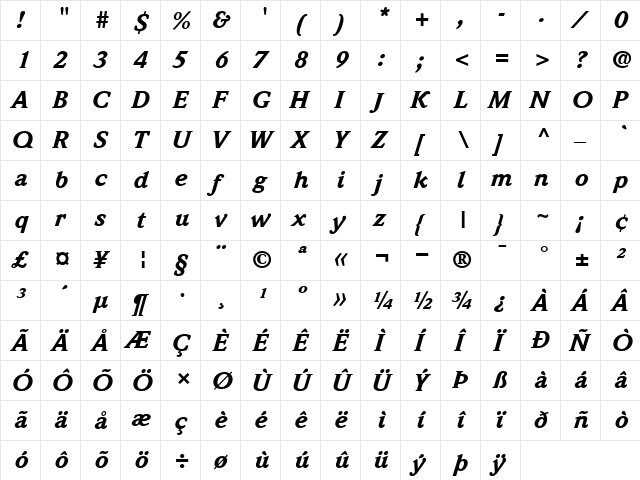
ITCWeidemann-Black BlackItalic
Design Context for ITCWeidemann-Black Typeface
ITCWeidemann-Black is a composed and adaptable typeface that performs quietly and consistently across a wide range of design contexts. The dynamic lean of this cut emphasises speed and emphasis in any layout.
Pro Tip: Try ITCWeidemann-Black for annotation and caption copy alongside an upright companion — the contrast in angle creates a dynamic but ordered typographic system.